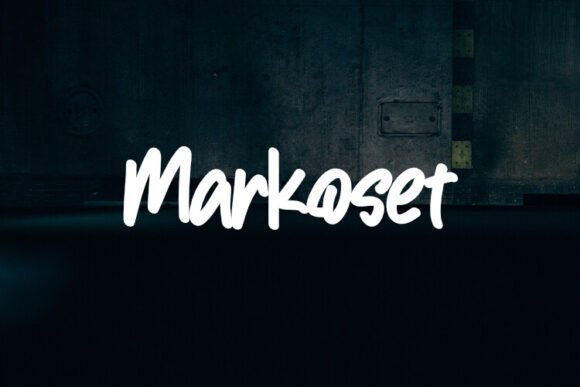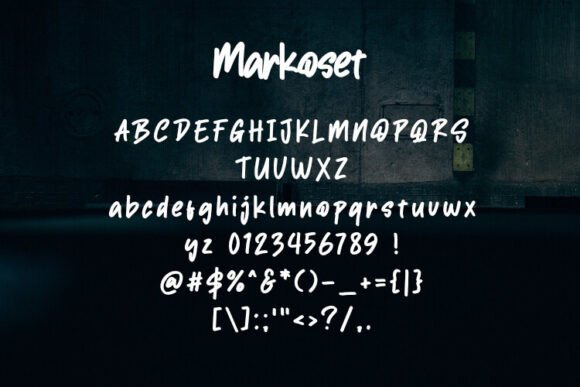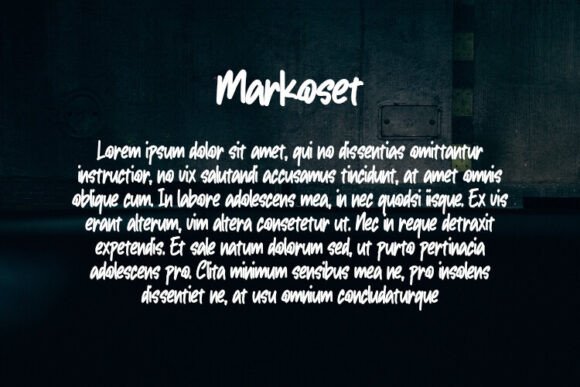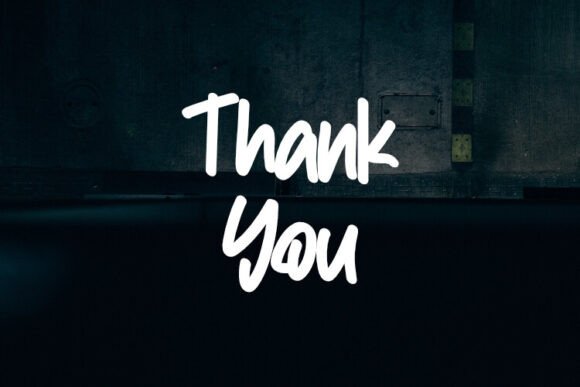
Markoset Font: A Modern Handwritten Script for DIY & Cricut Crafts
About the Markoset Font
Discover the charm of Markoset Font. This font is a perfect blend of modern aesthetics and classic appeal. Unveiling “Markoset,” a versatile and attractively crafted font, born to breathe life into your designs, whether for clothing, t-shirts, or diverse products. Its seamless compatibility with all design platforms and its availability in otf file format make Markoset the perfect tool for all your project needs, imbuing every creation with sophistication and visual appeal.
Markoset’s bold, slightly playful personality makes it ideal for headlines, logos, and short-form text in branding projects. It works exceptionally well on packaging, posters, and social media graphics where a strong visual impact is desired. However, its condensed letterforms make it less suitable for body text or lengthy paragraphs, hindering readability. Avoid using it in UI design or applications requiring smaller point sizes.
Pair Markoset effectively with a clean sans-serif like Lato for a balanced contrast, or a more delicate script font like Great Vibes to add a touch of elegance. For a modern, high-impact combination, consider pairing it with a geometric sans-serif such as Futura.
The overall impression is one of confident modernity, making it a good choice for brands aiming for a sophisticated yet approachable image.